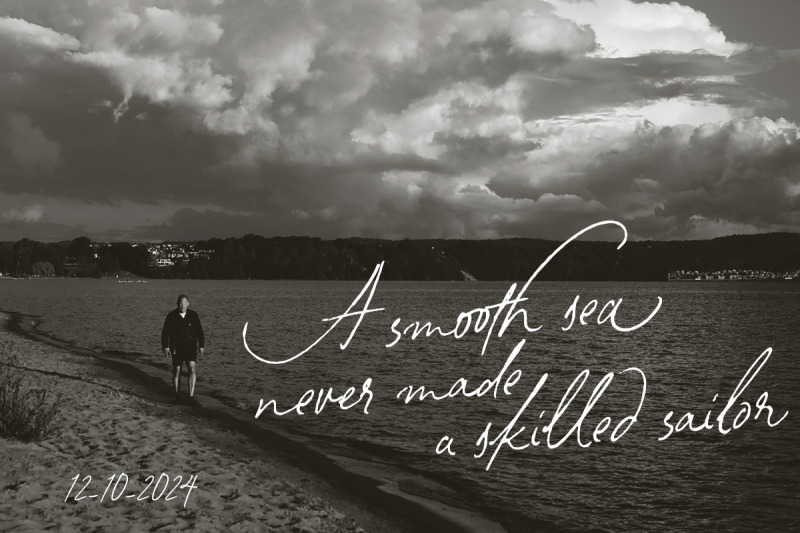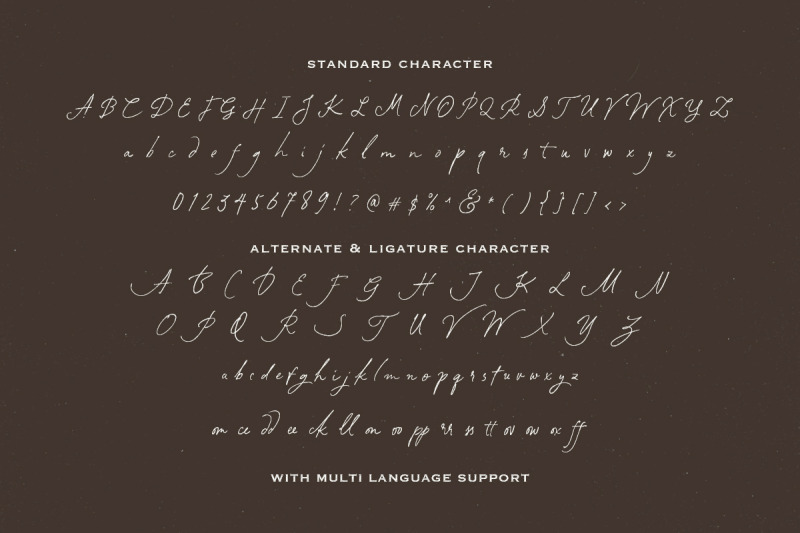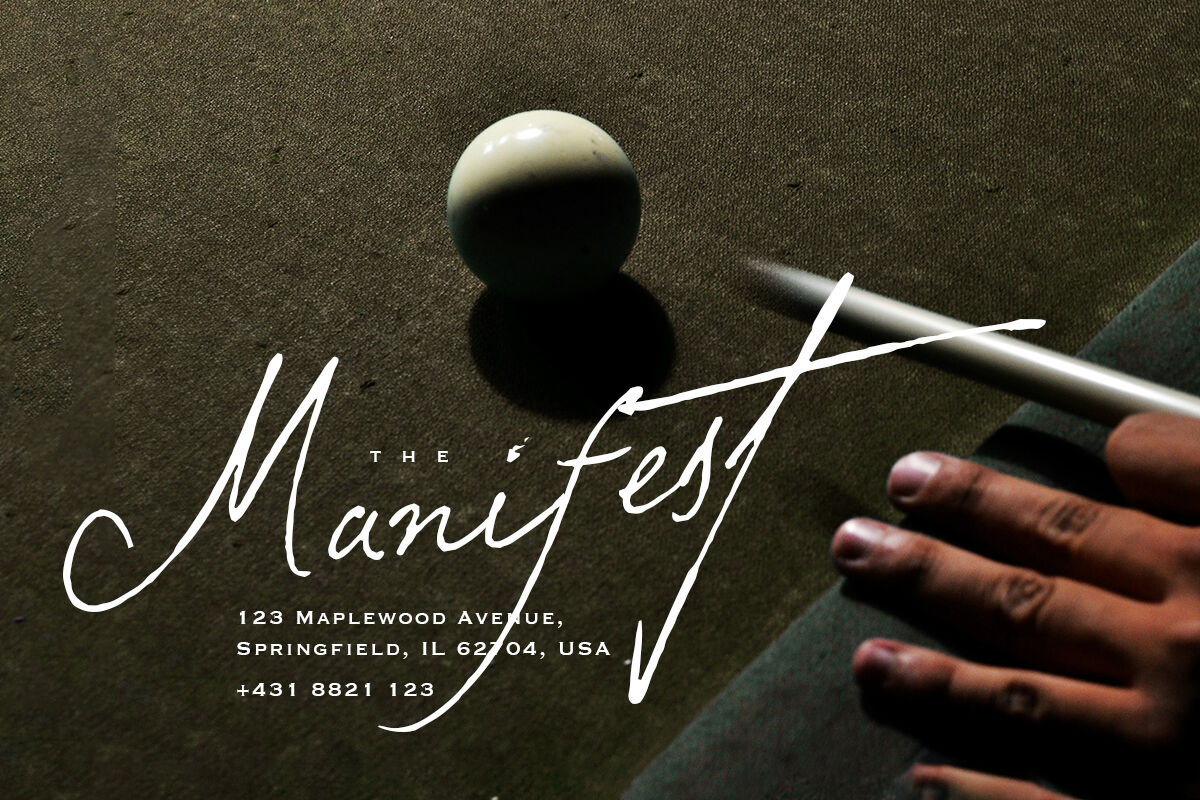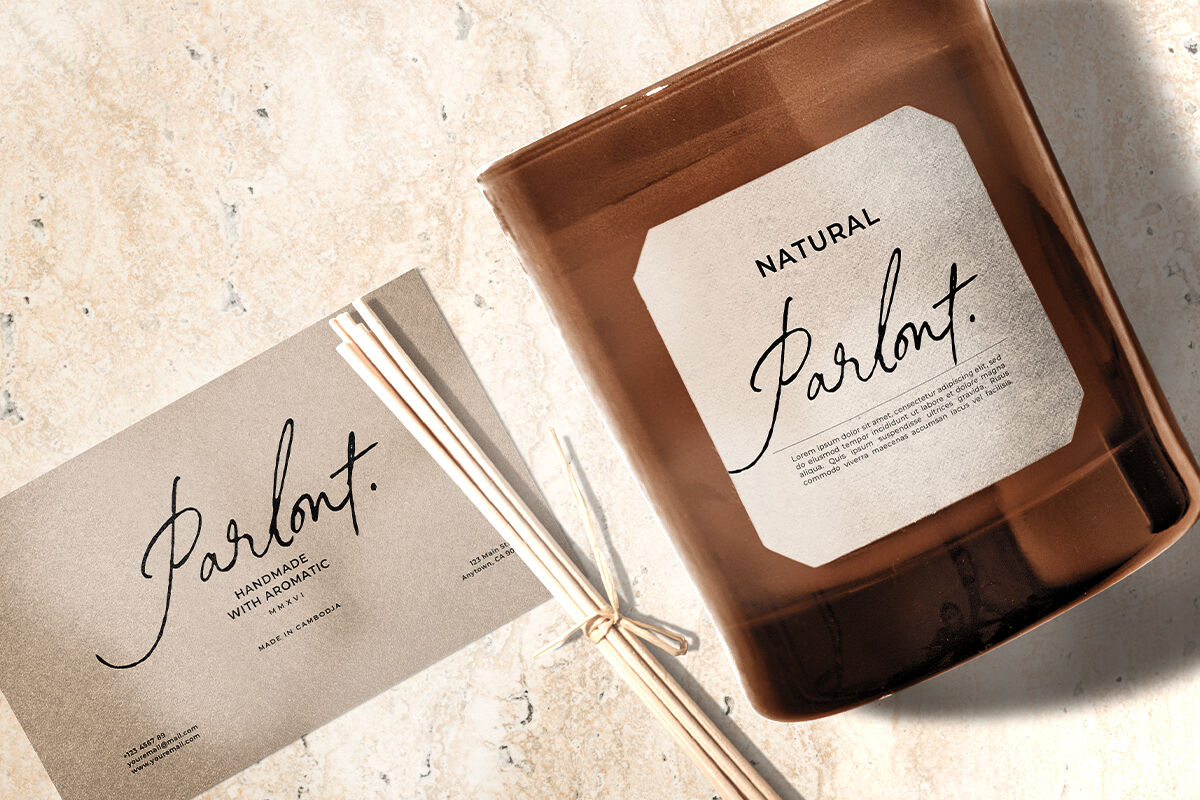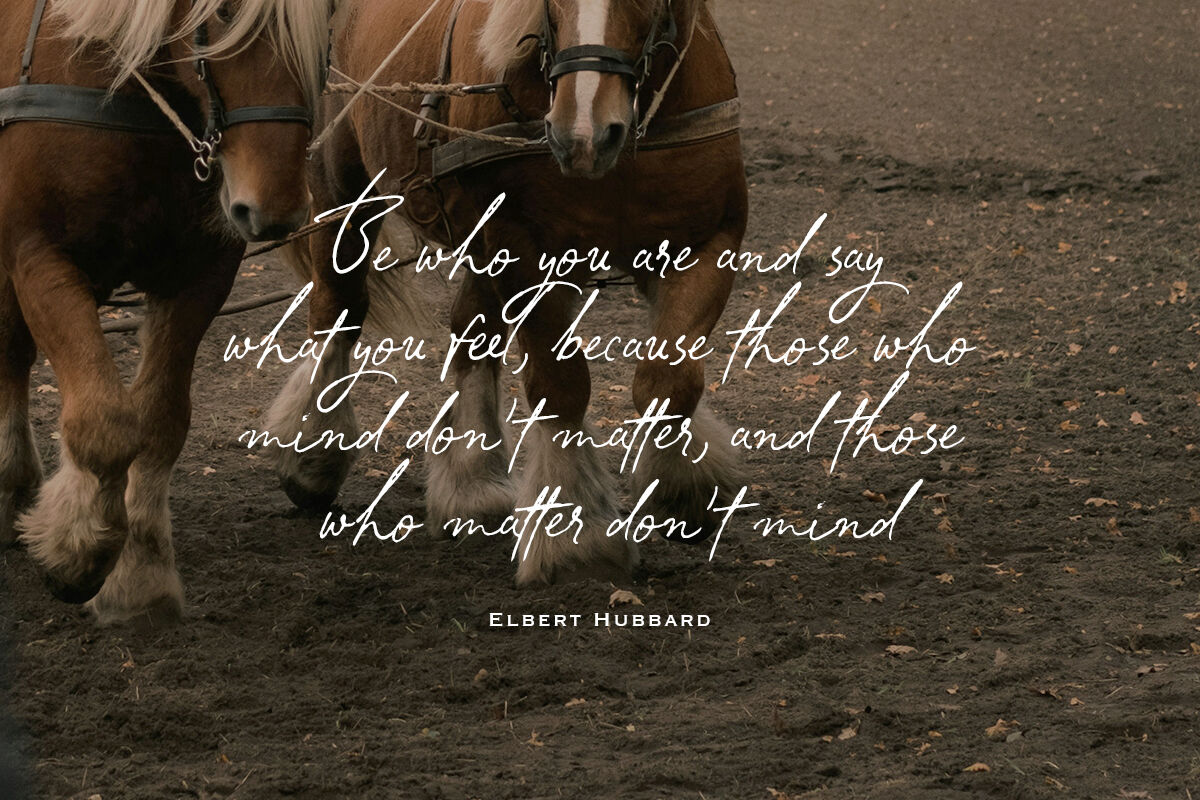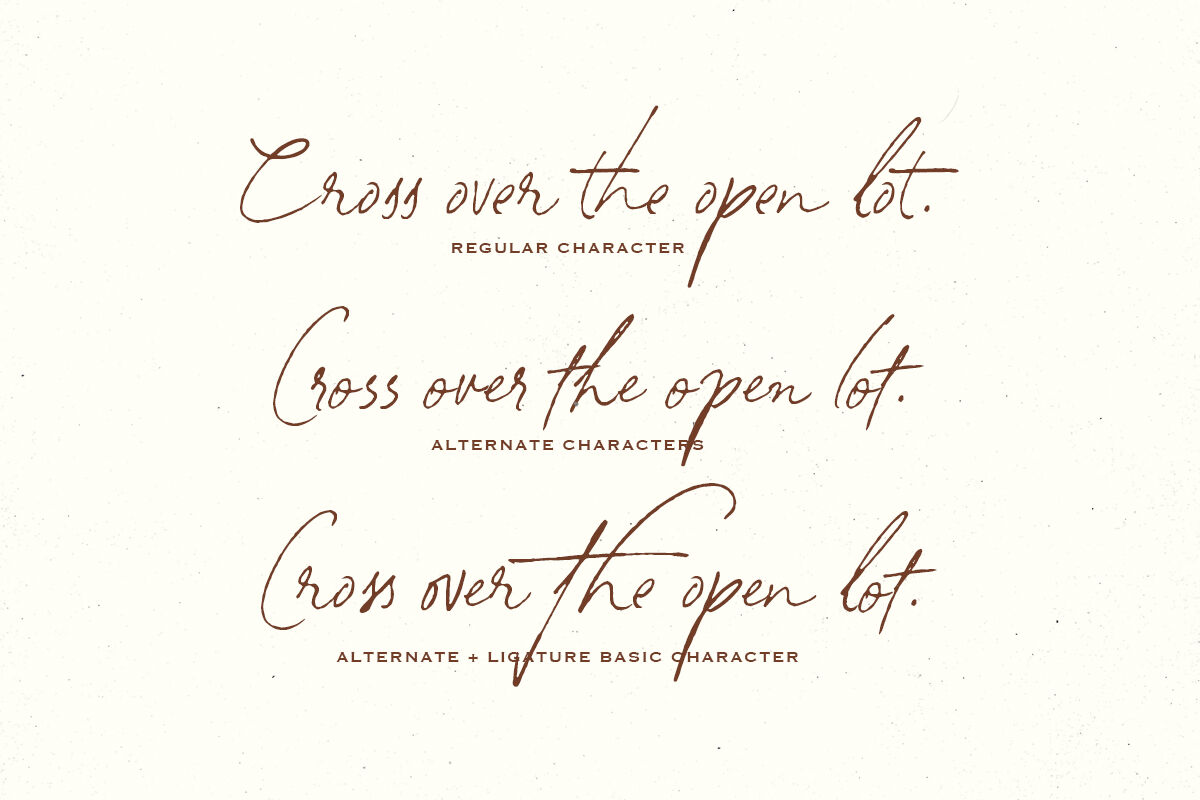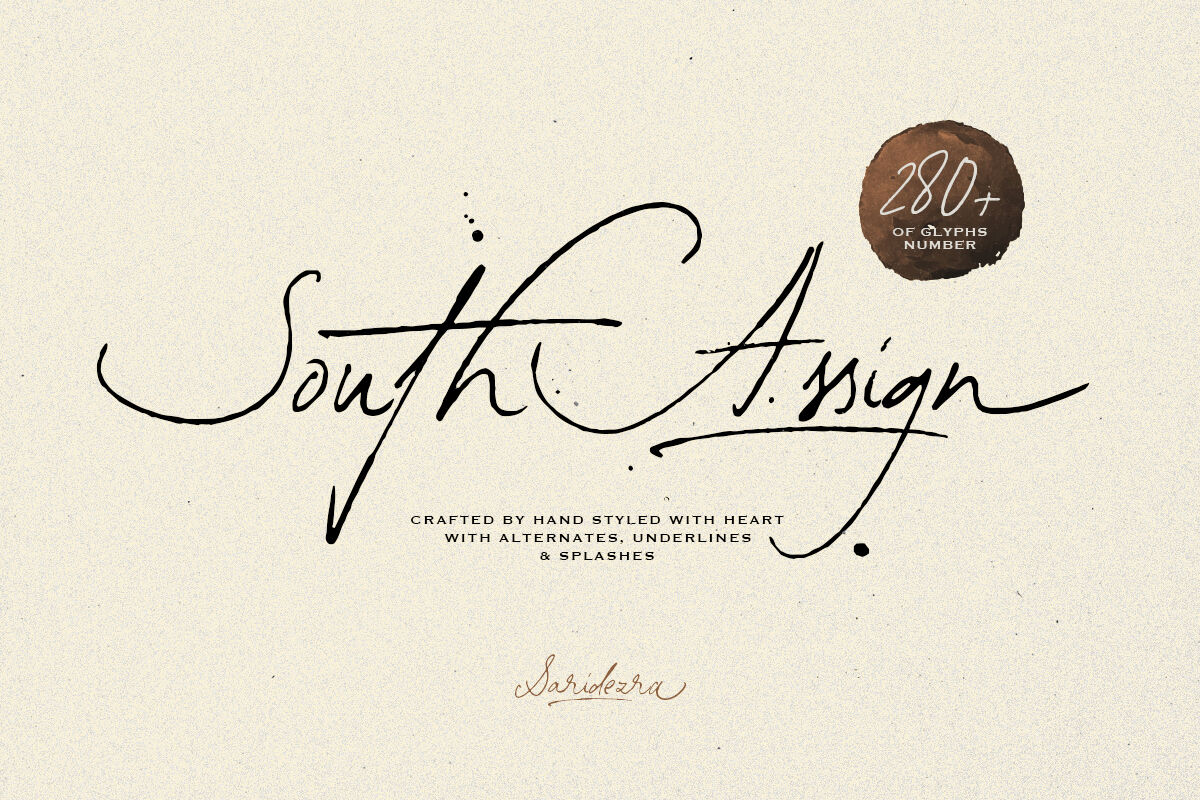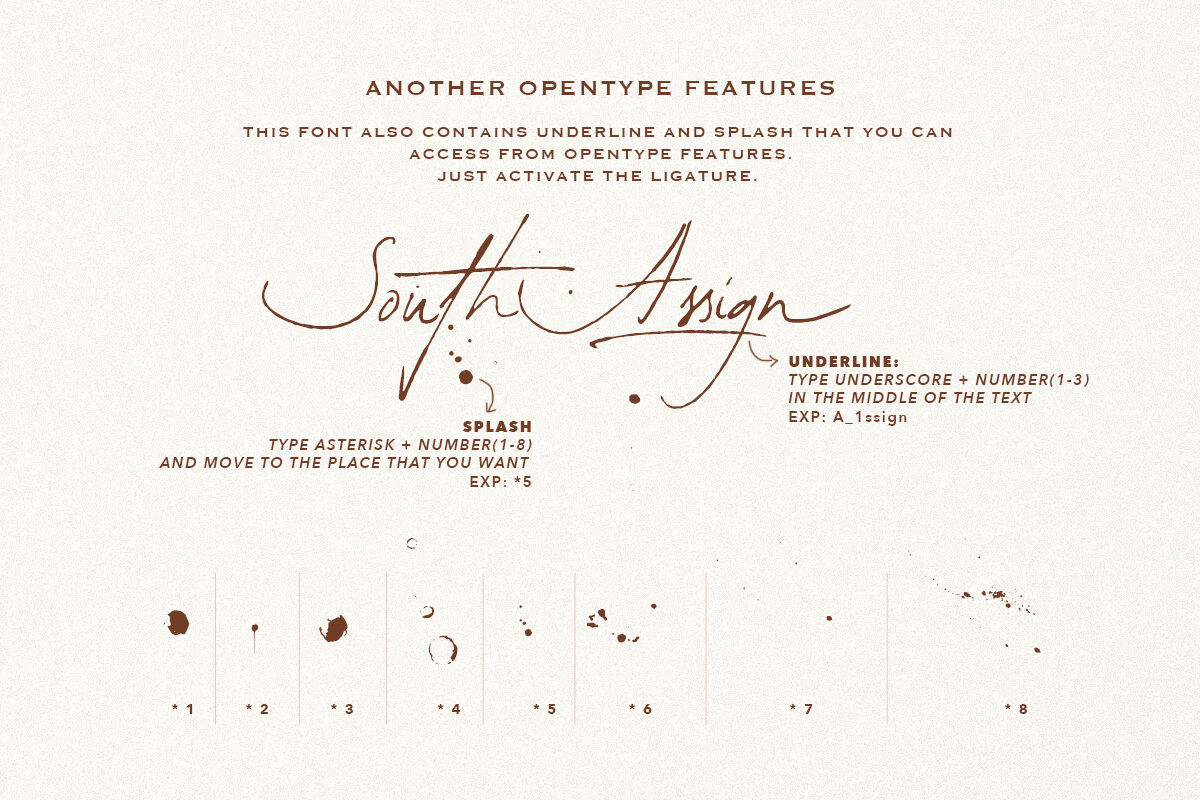
South Assign - Vintage Inspired Font
South Assign is a vintage inspired script with bunch of features. This font comes with alternates, underline, and splash that you can access from opentype features. You can use this script font for any purposes such as branding, quotes, signature logo, and especially wedding invitations. This font also support multi language!